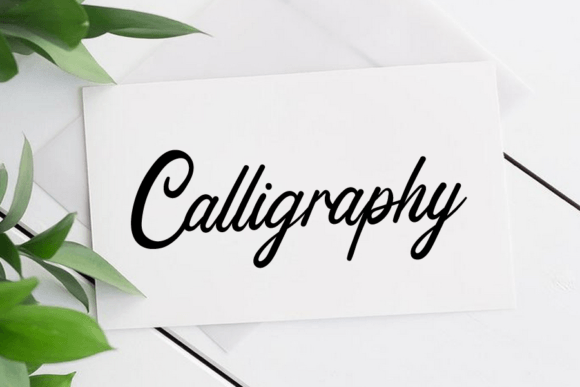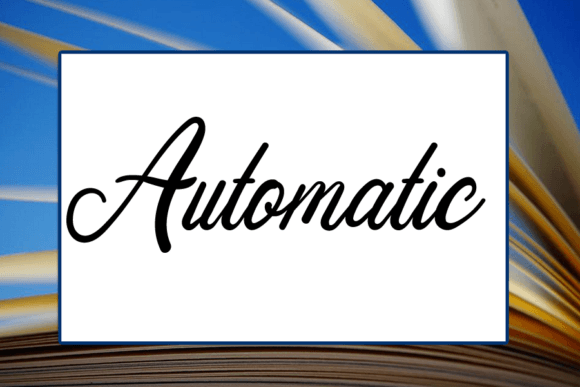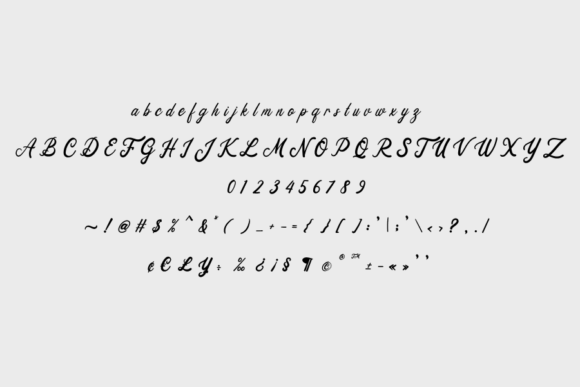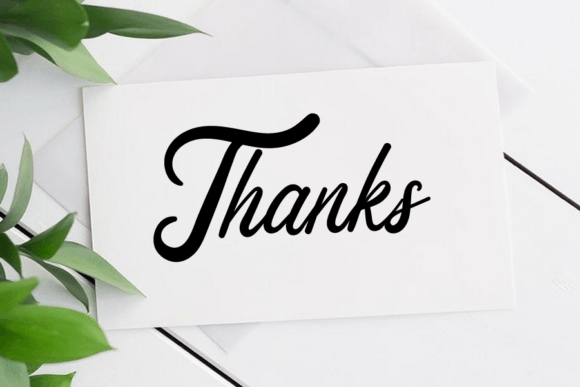
Daddy Font: Elevate Your Designs with a Fresh, Modern, and Stylish Handwritten Script Font
In the world of typography, fonts play a crucial role in bringing creative ideas to life. A well-chosen font can elevate a design, making it more engaging, readable, and memorable. For designers and crafters looking for a fresh, modern, and stylish handwritten script font, Daddy Font is an excellent choice. With its beautiful and well-balanced characters, Daddy Font matches a wide pool of designs, making it an ideal addition to your typography collection.
What is Daddy Font?
Daddy Font is a modern, stylish, and flowing handwritten script font designed to add a touch of elegance and sophistication to your designs. Its fresh and unique style makes it perfect for a wide range of creative projects, from branding and advertising to packaging and digital media. The font’s beautiful and well-balanced characters ensure that your text is not only readable but also visually appealing.
Key Features of Daddy Font
- Fresh and Modern Style: Daddy Font boasts a fresh and modern style that will make your designs stand out from the crowd.
- Stylish and Flowing: The font’s stylish and flowing script style adds a touch of elegance and sophistication to your designs.
- Well-Balanced Characters: The font’s well-balanced characters ensure that your text is readable and visually appealing.
- Wide Range of Applications: Daddy Font matches a wide pool of designs, making it perfect for a variety of creative projects.
Why Choose Daddy Font?
With so many fonts available, why choose Daddy Font? Here are a few reasons why designers and crafters love this font:
- Versatility: Daddy Font is versatile and can be used for a wide range of creative projects, from branding and advertising to packaging and digital media.
- High-Quality Design: Daddy Font is designed with high-quality and attention to detail, ensuring that your designs look professional and polished.
- Unique Style: The font’s unique style makes it perfect for designers and crafters looking for a fresh and modern look.
Tips and Tricks for Using Daddy Font
Here are a few tips and tricks for using Daddy Font:
- Pair it with Other Fonts: Pair Daddy Font with other fonts to create a unique and interesting look.
- Use it for Headings and Titles: Use Daddy Font for headings and titles to add a touch of elegance and sophistication.
In conclusion, Daddy Font is a fresh, modern, stylish, and flowing handwritten script font that is perfect for designers and crafters looking for a unique and elegant look. With its beautiful and well-balanced characters, Daddy Font matches a wide pool of designs, making it an ideal addition to your typography collection. Whether you’re working on a branding project, creating a digital media design, or crafting a beautiful piece of art, Daddy Font is sure to elevate your designs and bring your creative ideas to life.